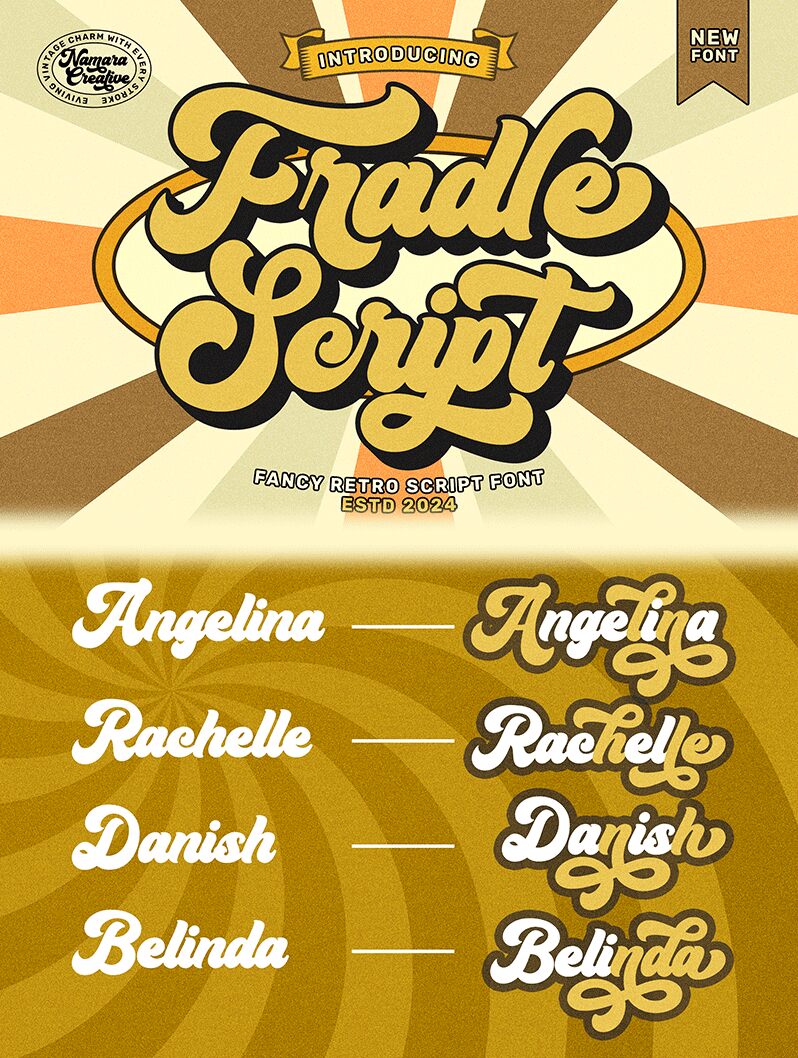
Fradle Script font by Namara Creative is a retro old-school typeface inspired by the vintage flair of American street typography. The free font is a pleasure to look at thanks to the beautiful flow of the letters, and it is highly versatile and very well crafted.
The expressive font is inspired by tattoo art and sprawled lettering styles. Use the font in branding projects, posters, packaging, websites, special handwriting purposes, quotes, apparel, or labels.
Retro bold script font that captures vintage charm and boldness. This free font brings a nostalgic appeal that resonates with audiences seeking vintage authenticity combined with modern allure.